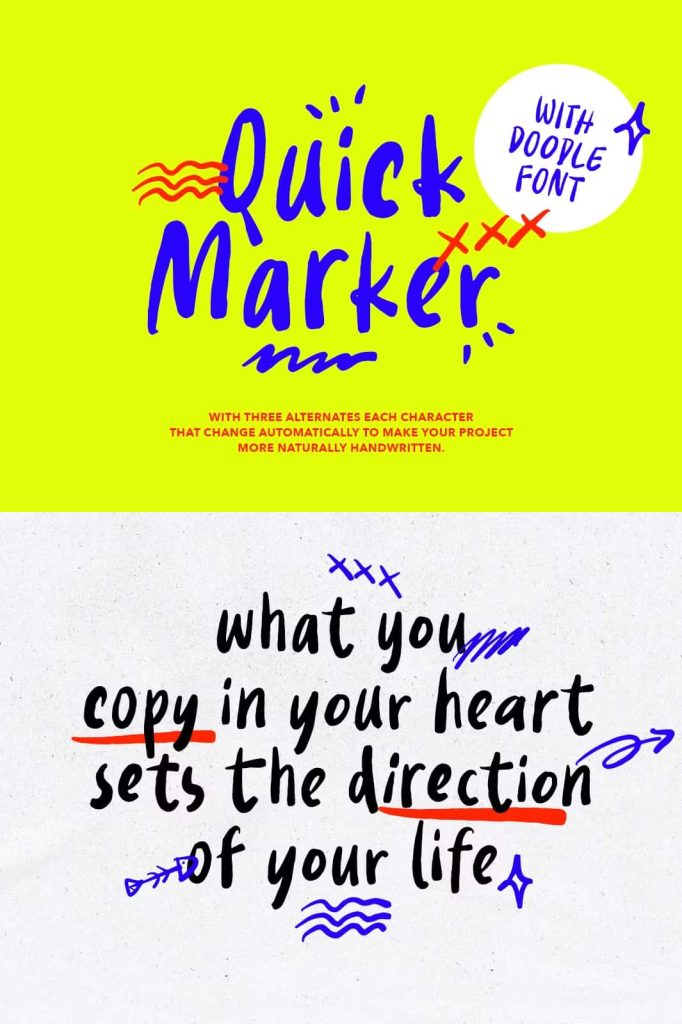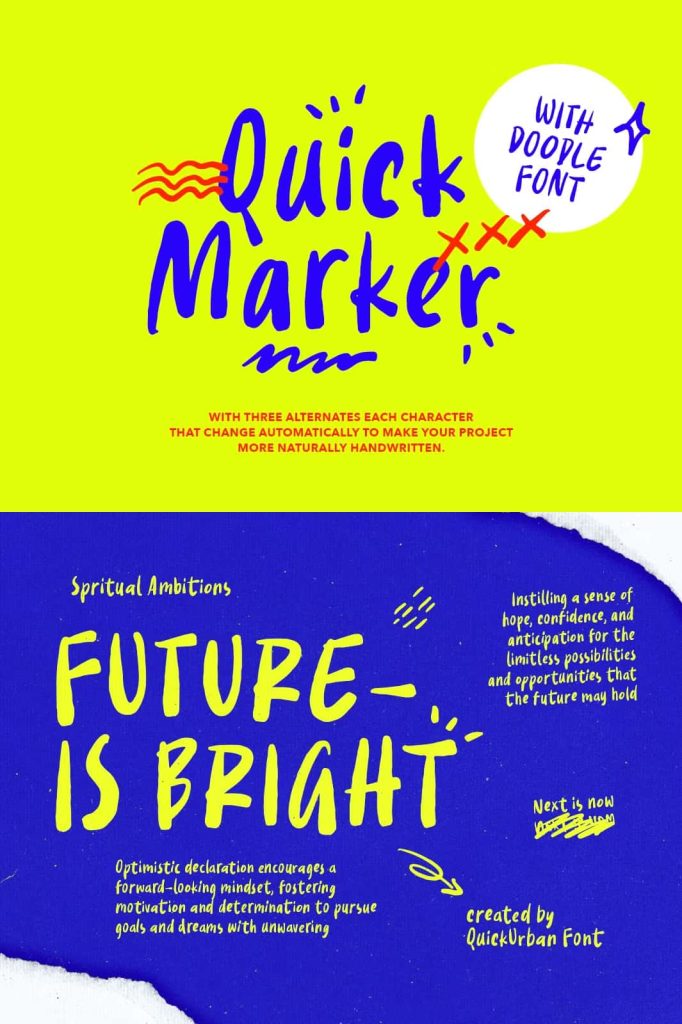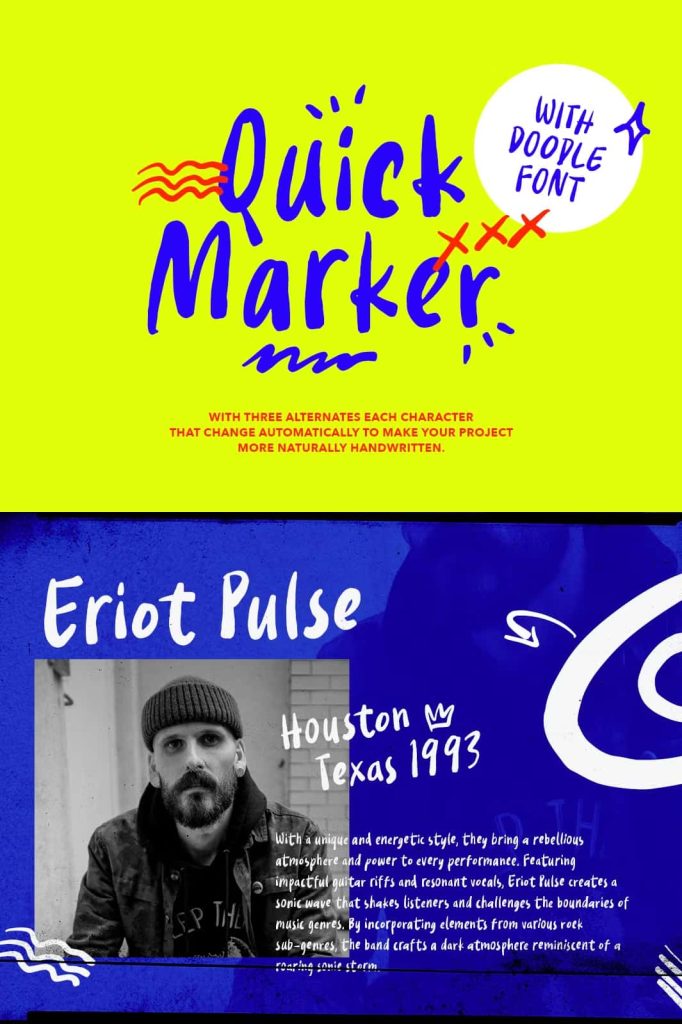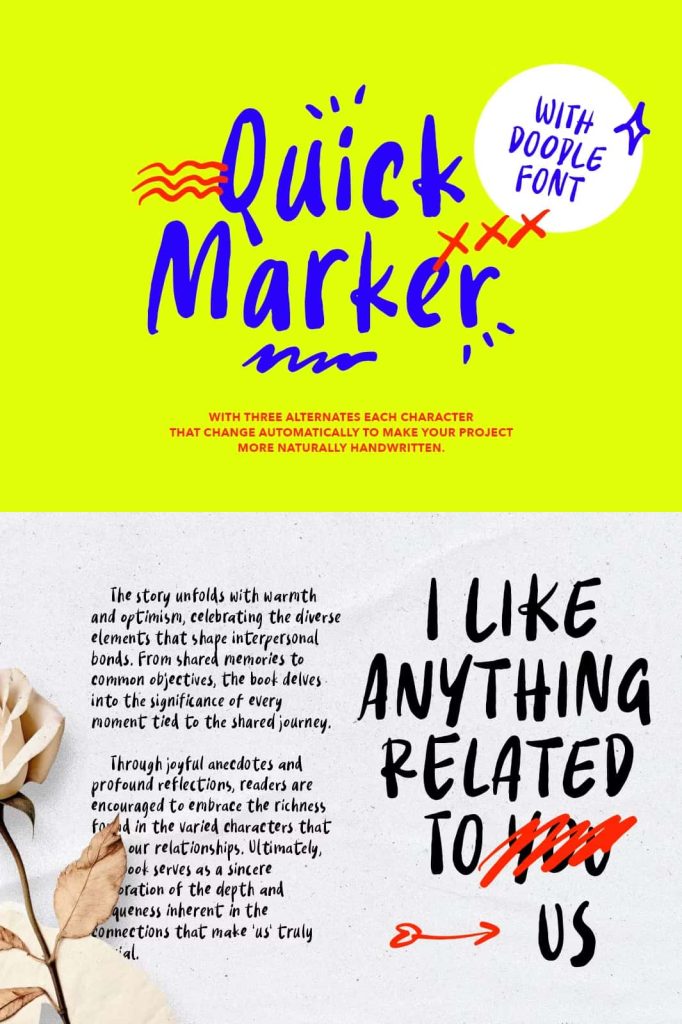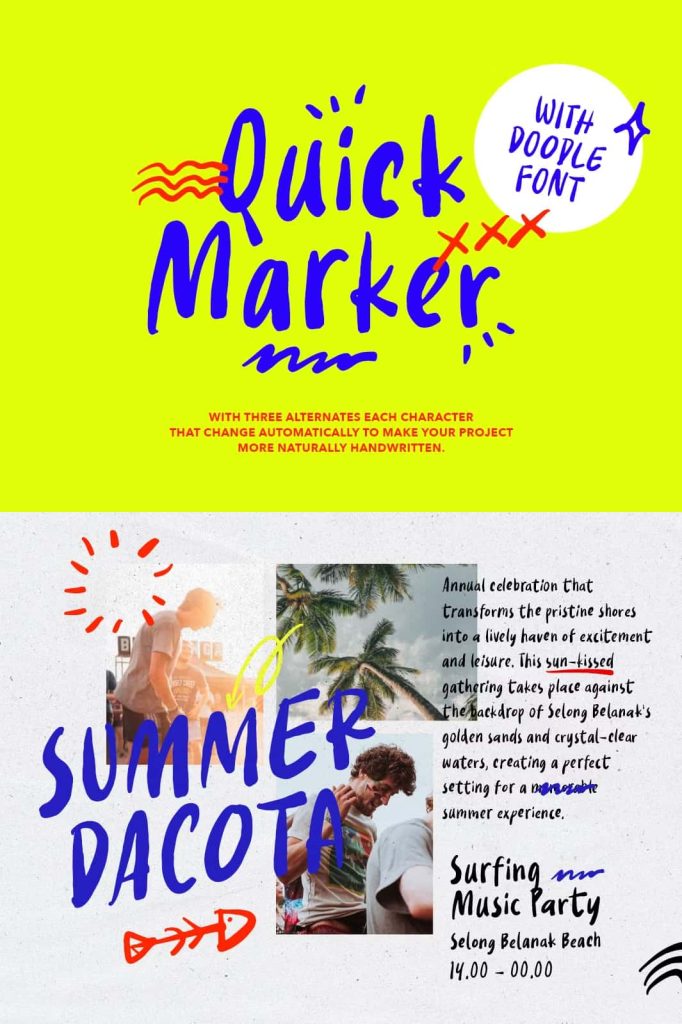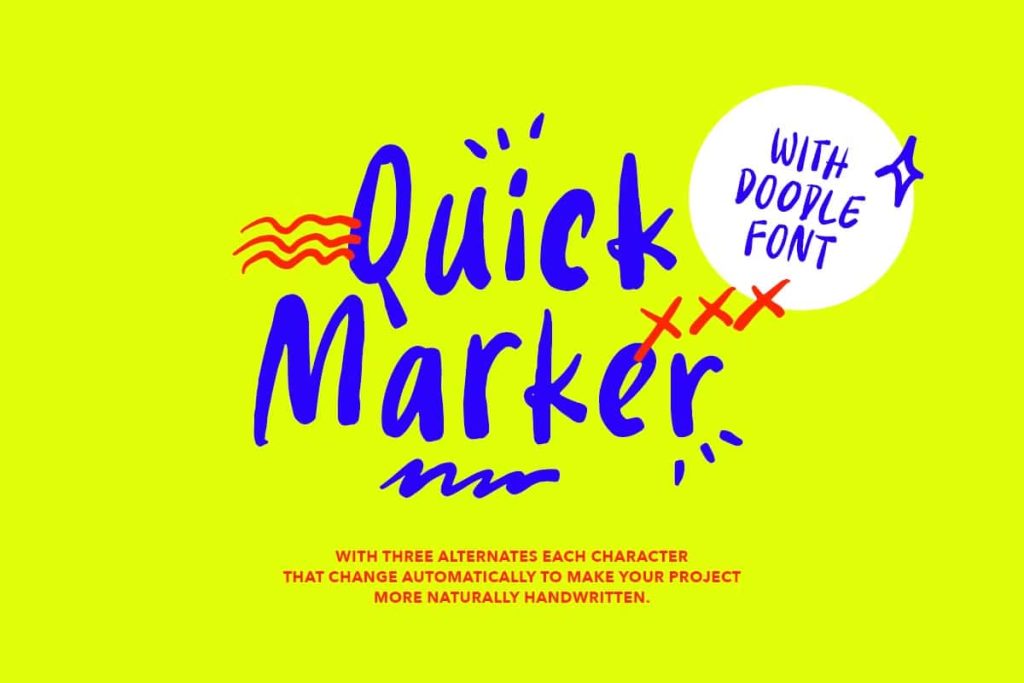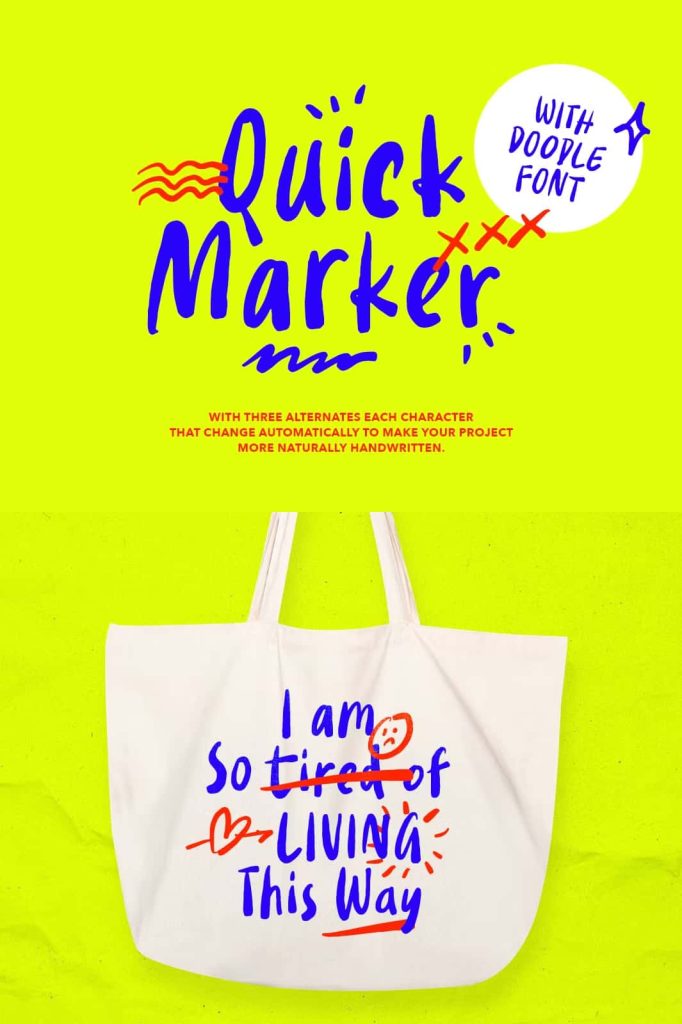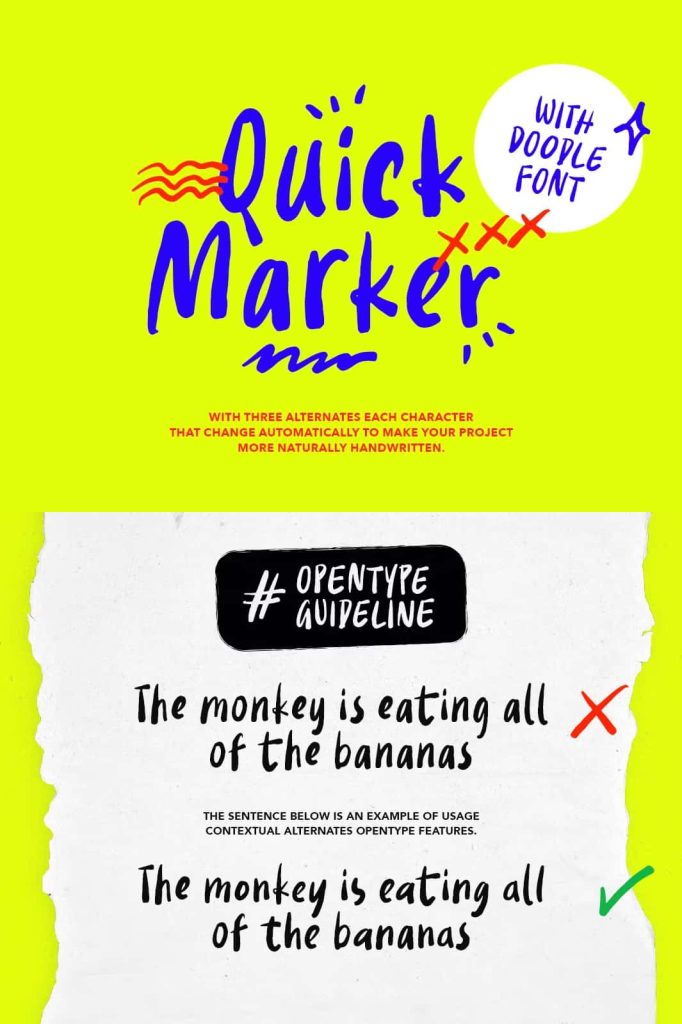
Introducing, Quick Marker, bold handwritten font with doodles!
Quick Marker is a handwritten font with bold and unique looks. With 3 set each characters, you can active the Contextual Alternates in Opentype Features from Adobe Photoshop/Illustrator to make the characters change automatically so your words or design looks more naturally handwritten.